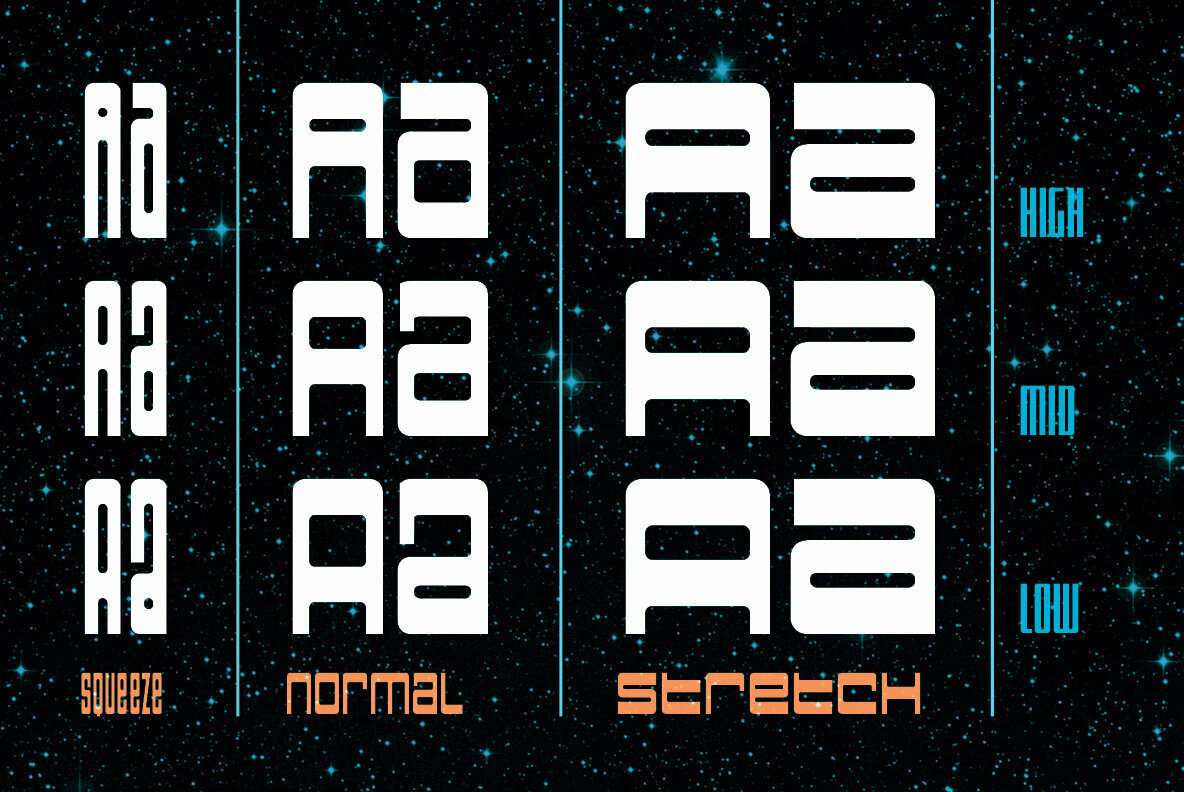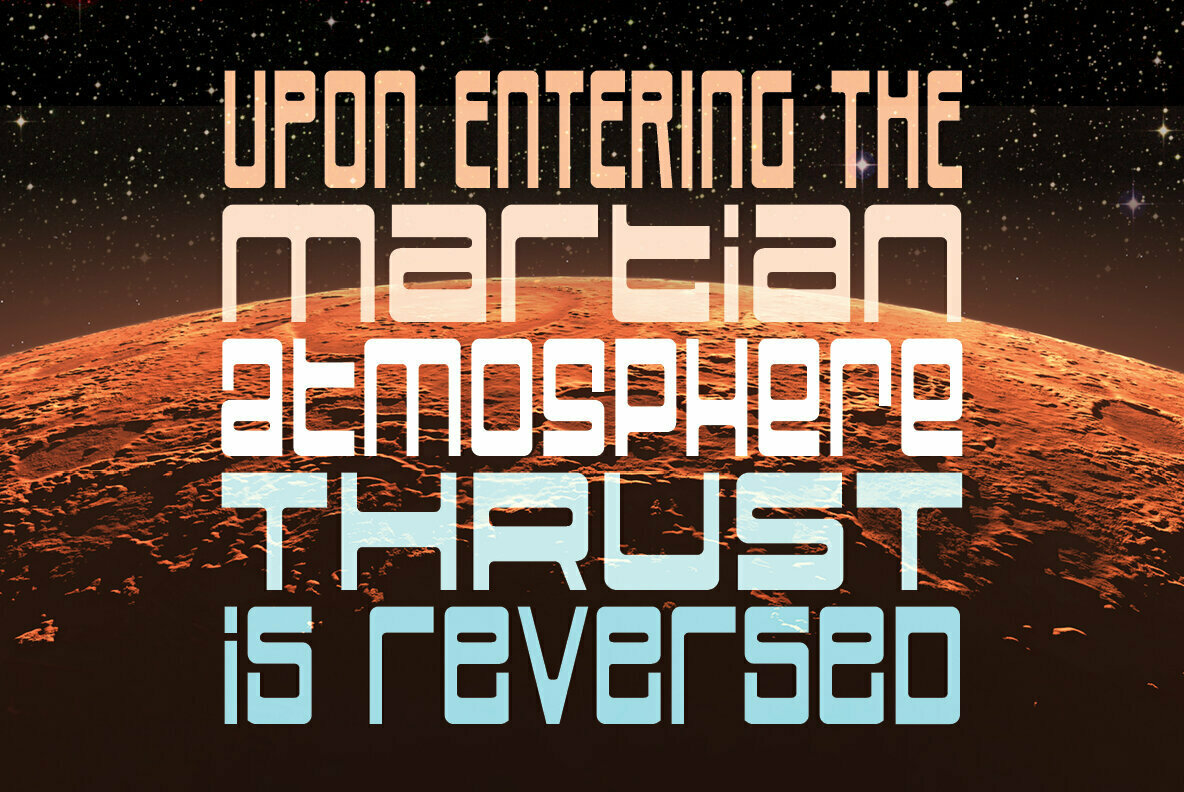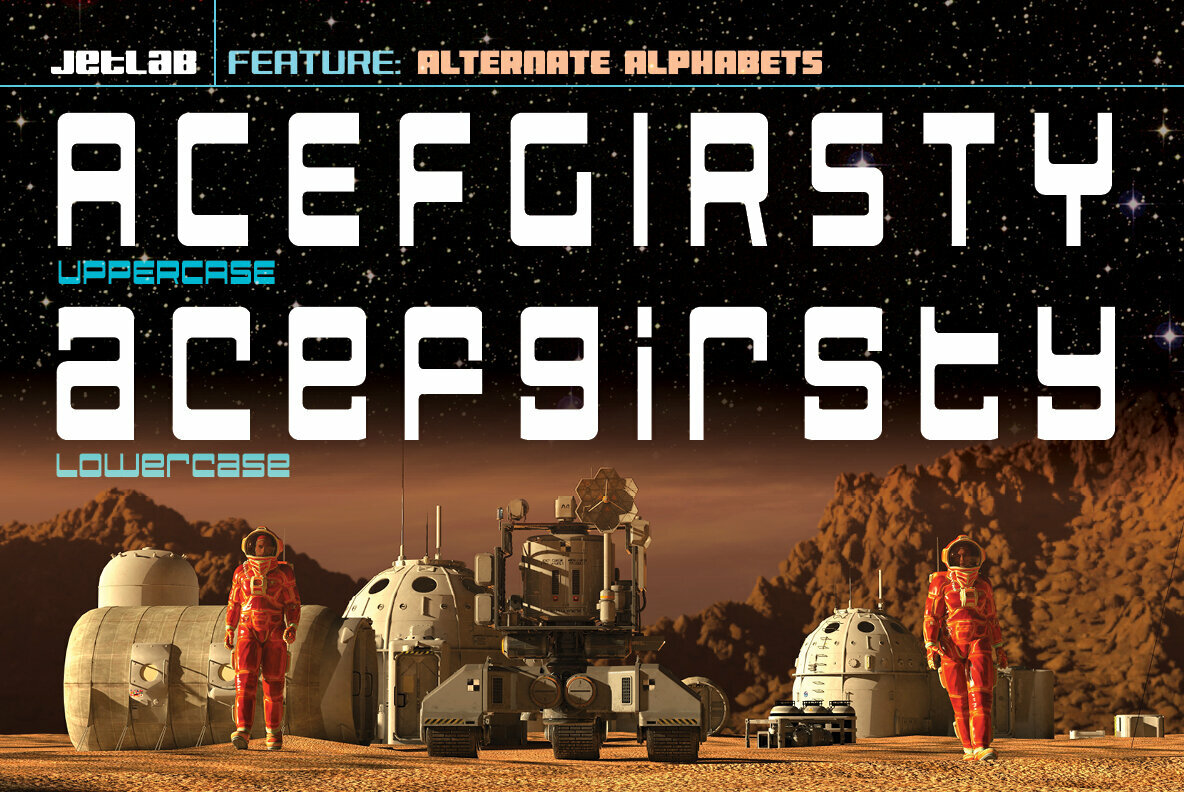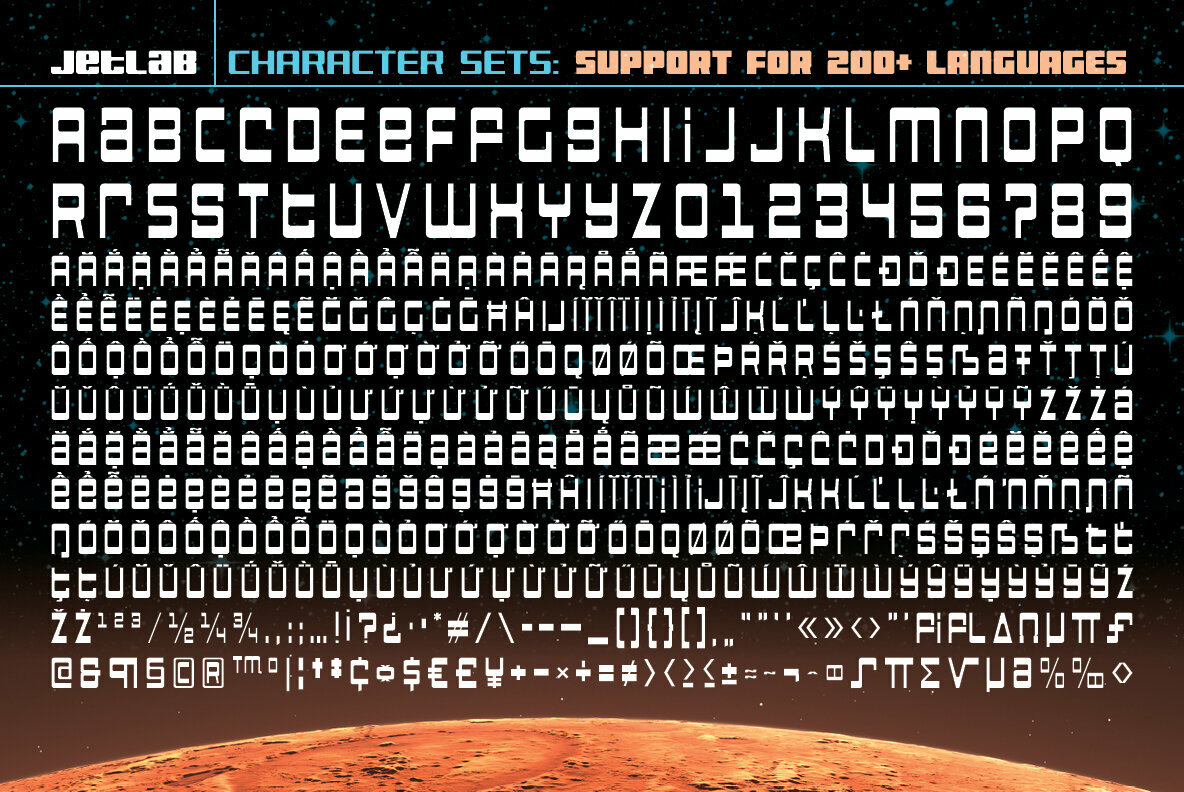
Jetlab Reverse Font
Jetlab is a typographic time machine that drops you squarely into the techno-futuristic optimism of the 1960s, 1970s and 1980s!
- Nine weights provide widths from Squeezed to Stretched plus high, medium and low crossbar options
- upper and lowercase letters provide two distinct styles
- 500 glyphs support 223 languages, including Western & Central Europe and Vietnamese